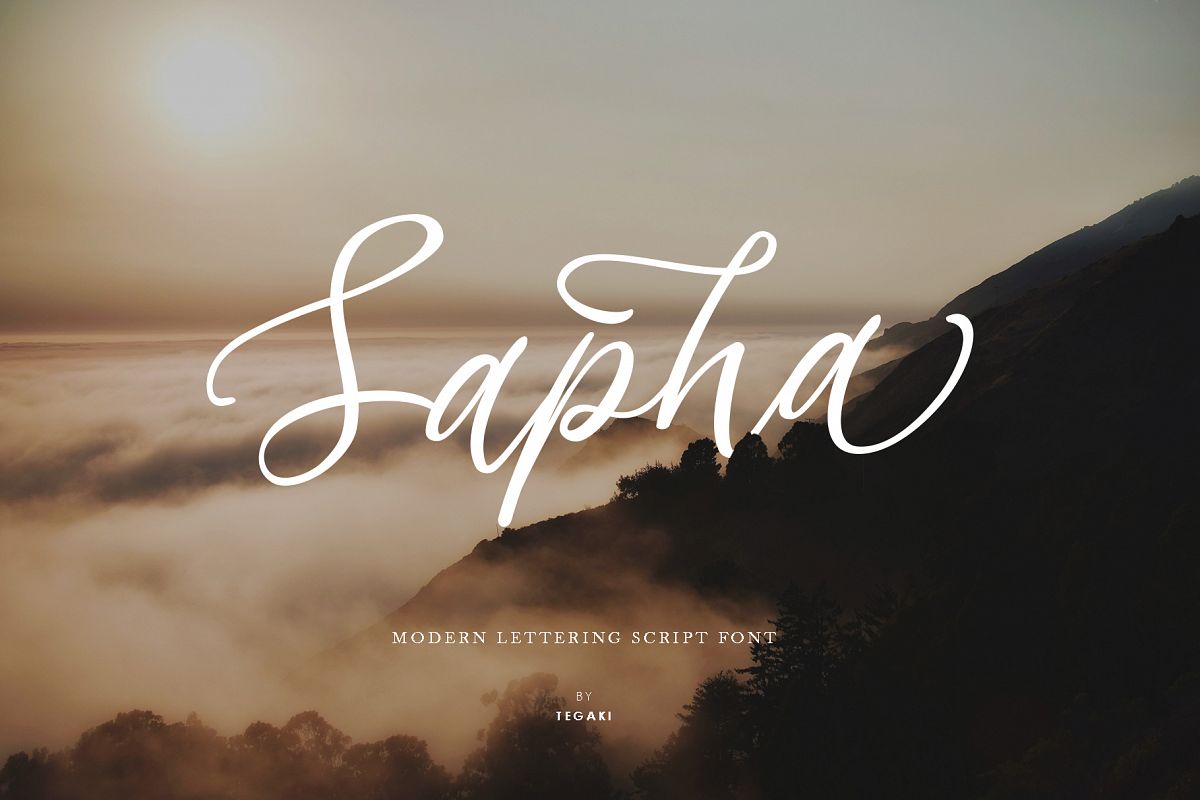
Sapha
Sapha created with stylish and modern handwritten characters. This font was PUA encoded.
Sapha is a modern handwritten style that comes with Extended Latin Characters.
Sapha works perfectly for logos, display, product branding, wedding invitation card, stationary, packaging, clothing, flyer, apparel, magazines, brochures, lable, posters, badges, etc.
Sapha comes with 304 glyphs and 78 alternate characters contain with opentype features (supported with contextual alternates mode).
Sapha also comes with 15 extended ligatures that allowing you to make stuff looks more exclusive and pro standard.